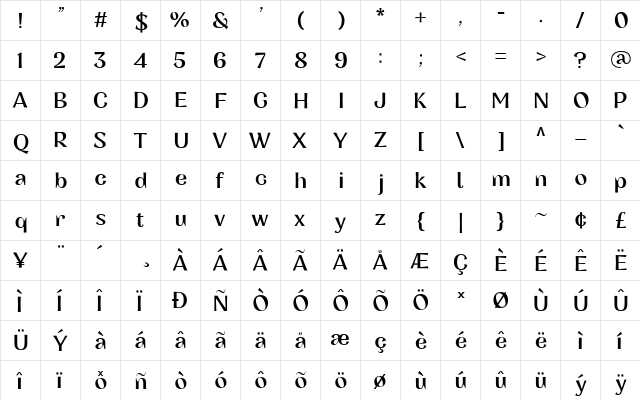
Concreate Fill Regular
| Foundry | Typo Bureau Studio |
| Designer | Tubagus Iqbal T |
Design Context for Concreate Fill Typeface
Concreate Fill offers clean, dependable letterforms without strong stylistic allegiance, making it a practical choice for designers who need flexibility.
Pro Tip: Pair Concreate Fill with a font of contrasting weight or personality to build a more expressive typographic hierarchy.